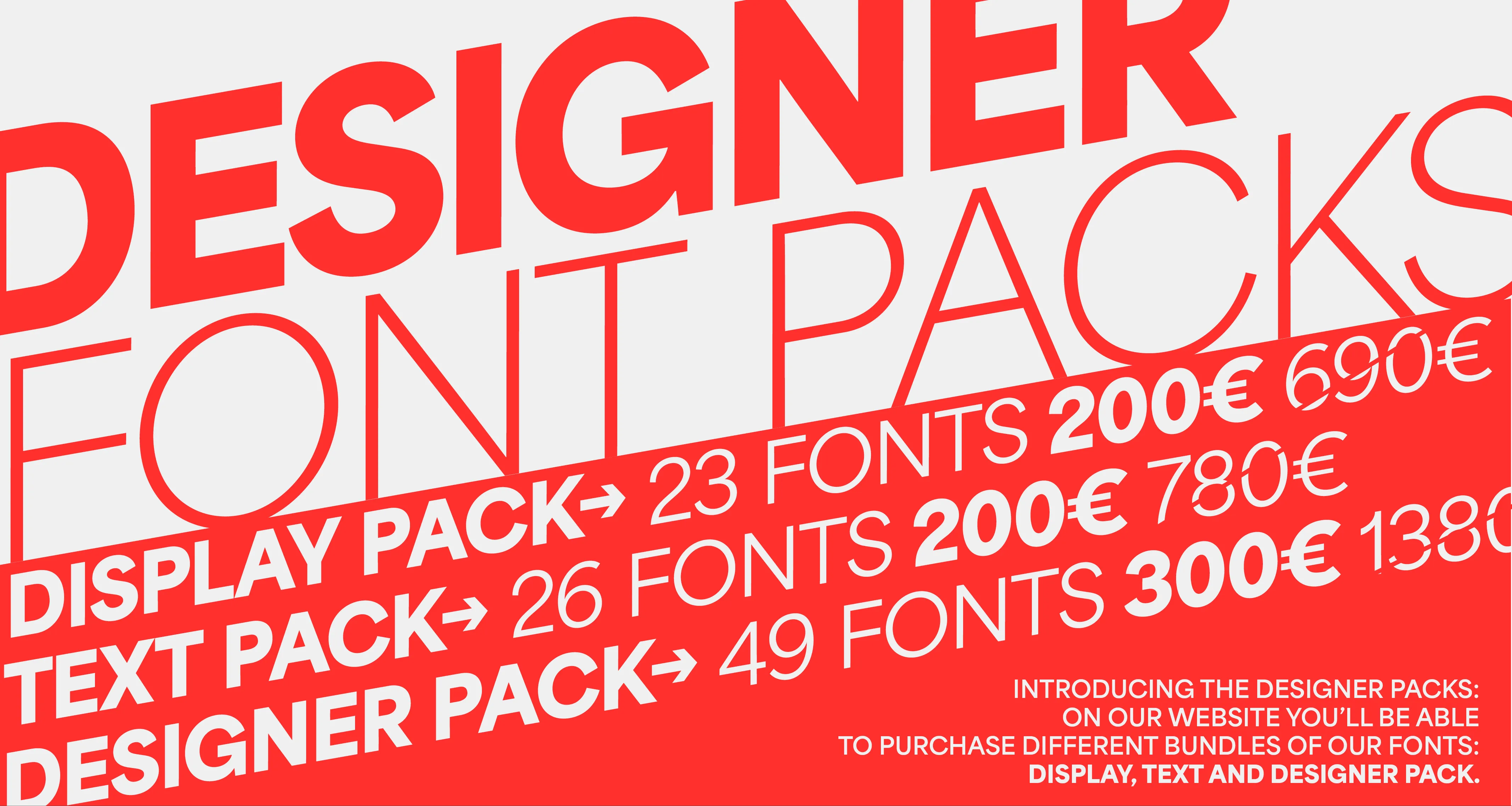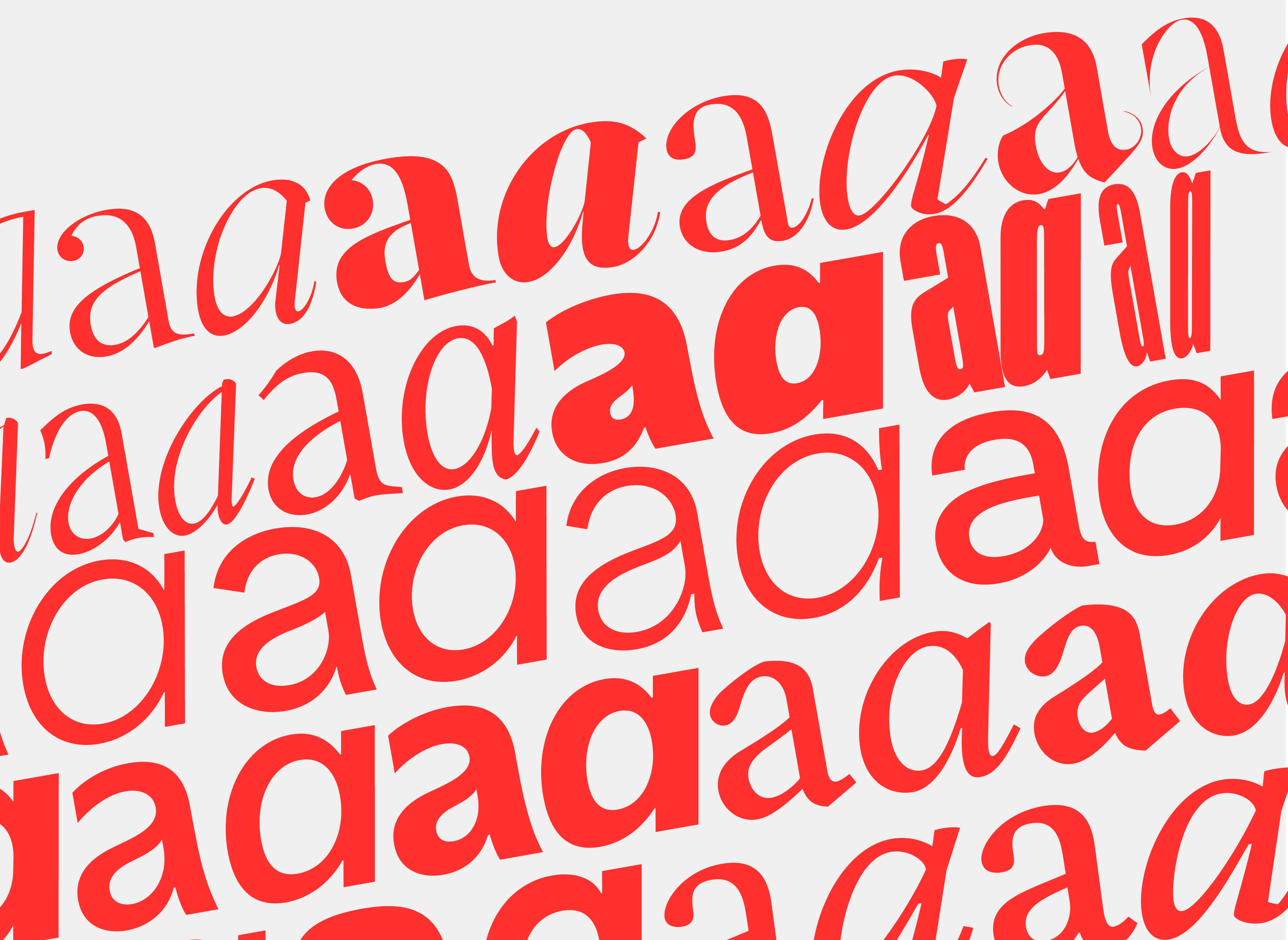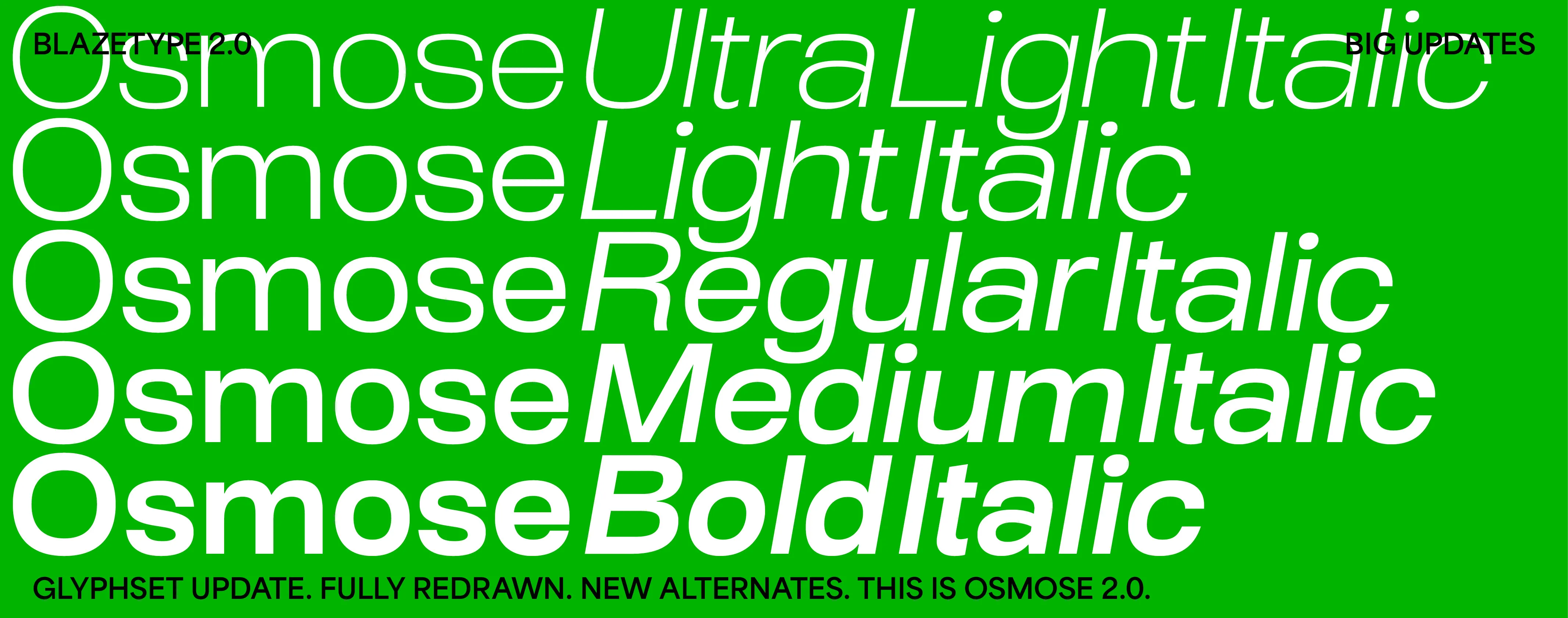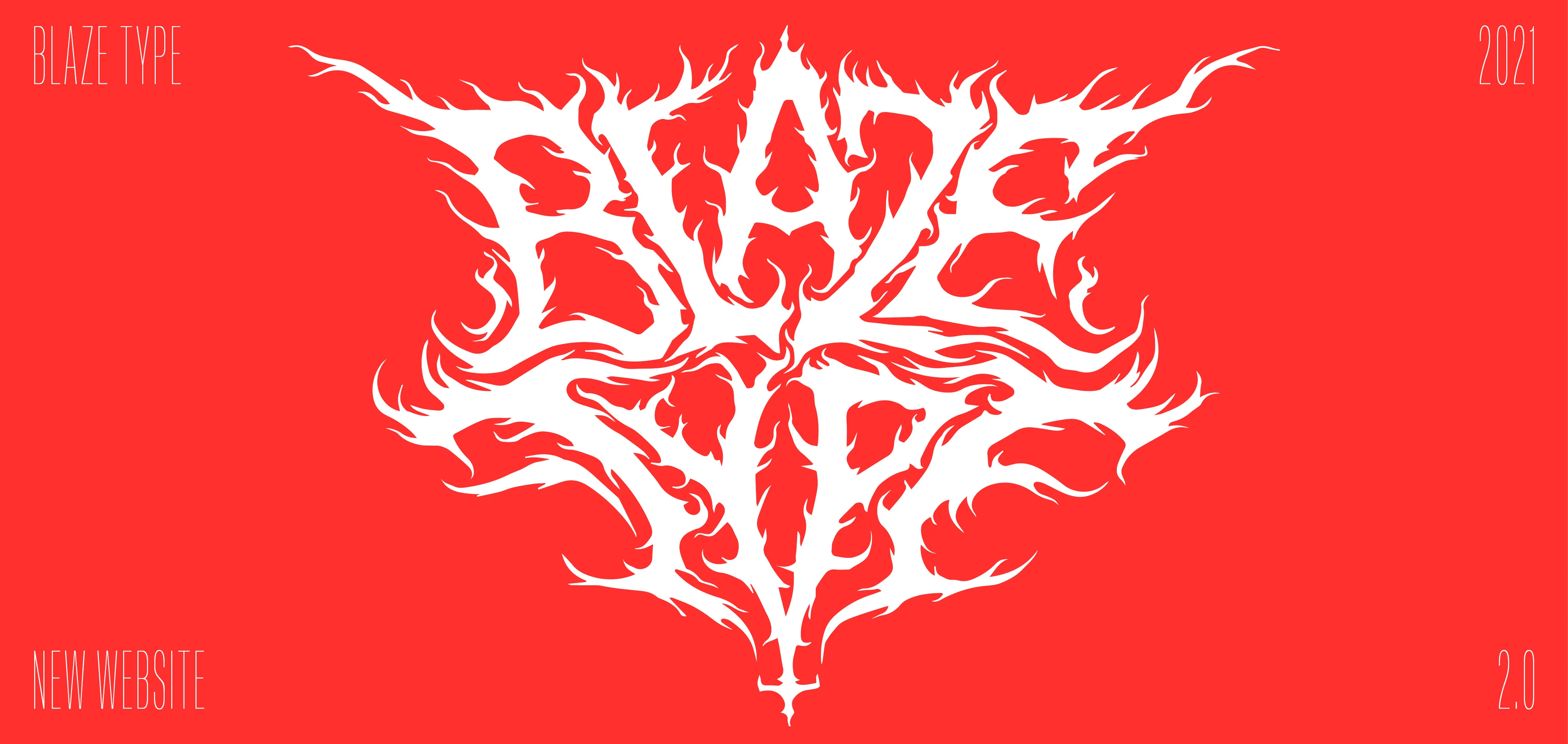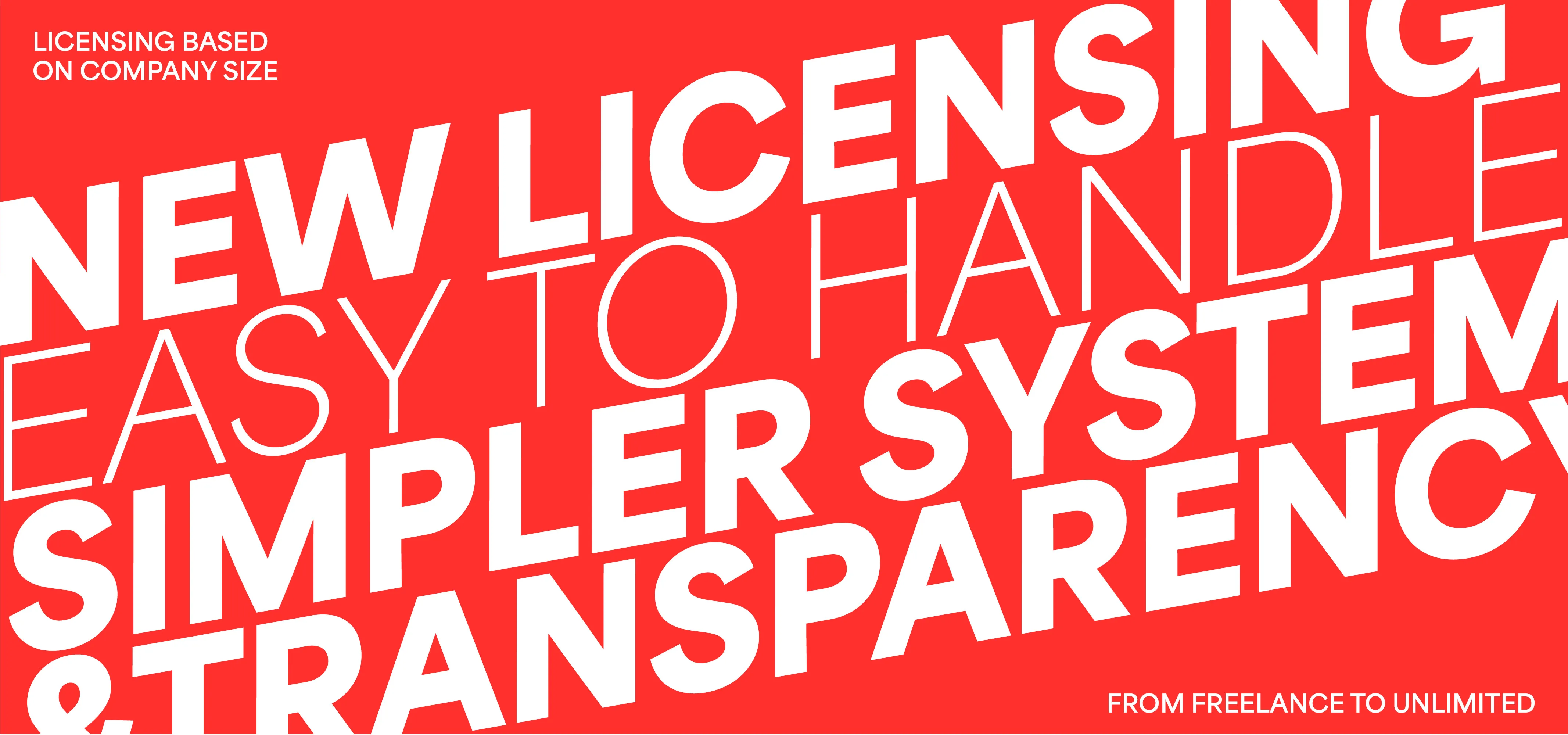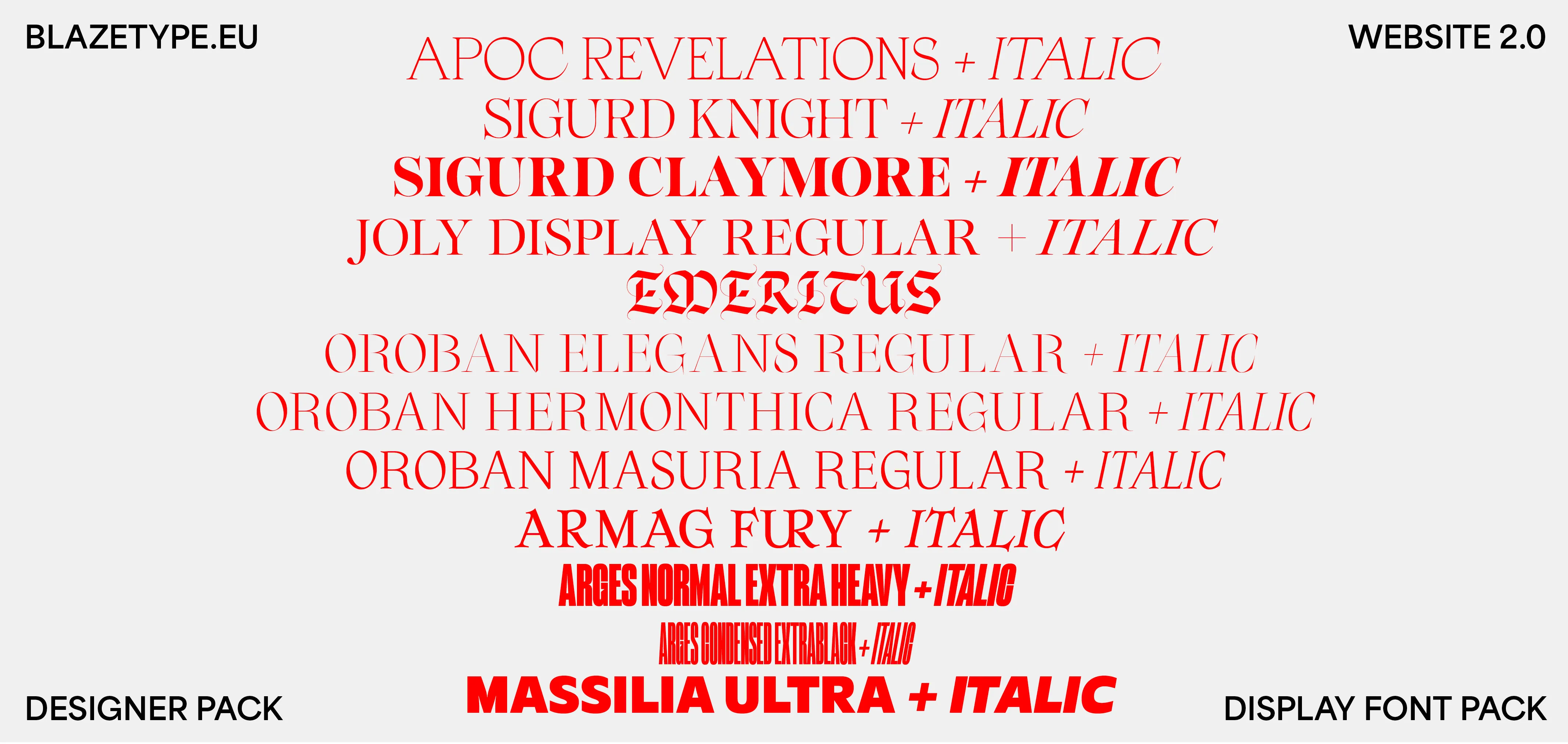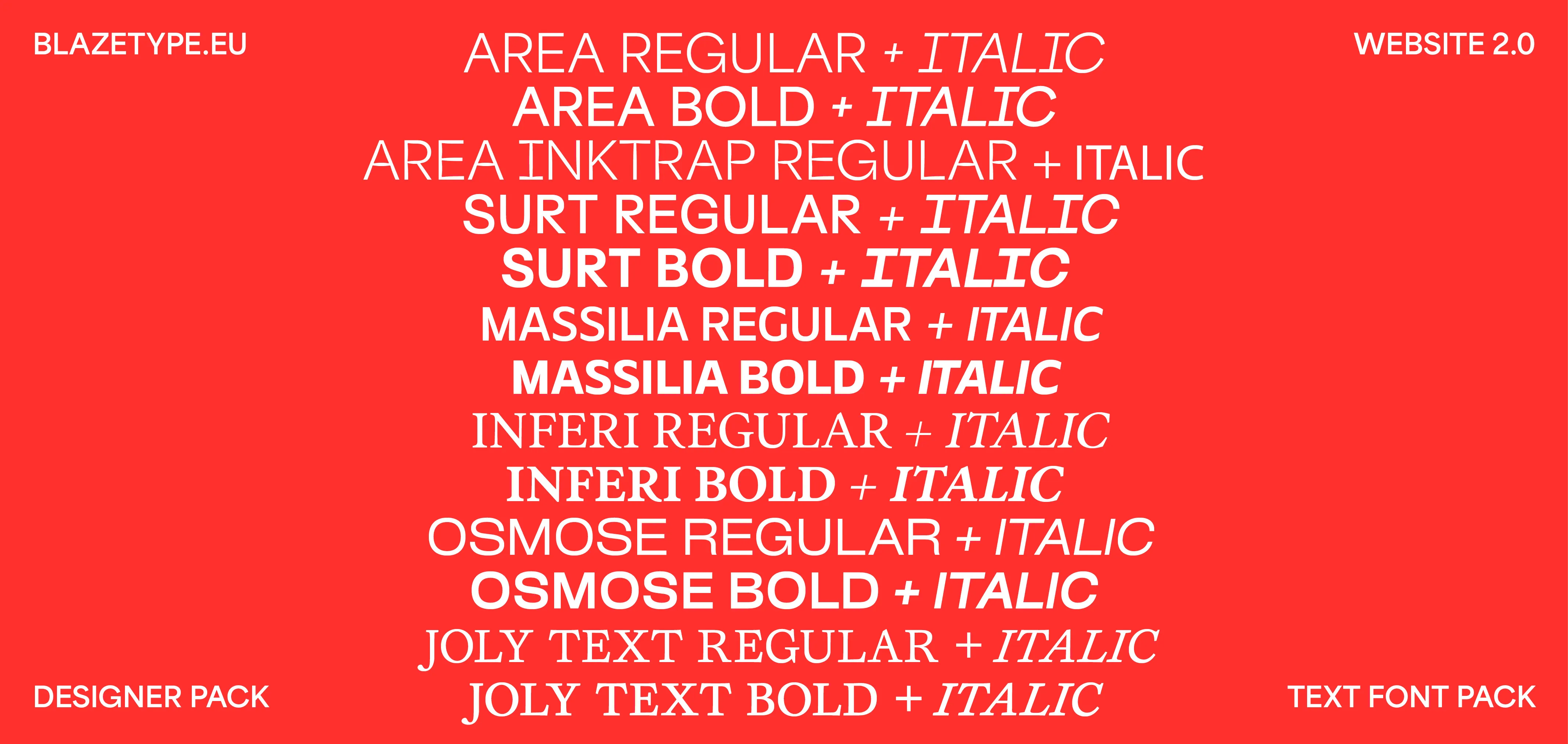
New Website Announcement
After two years of discussion, design & development, we’re super happy to announce the launch of Blaze Type’s Website 2.0
We thought it was important to go through all the different things which lead to the launching of our foundry along with what drove us to refactor our website.
BLAZE TYPE GENESIS
When I started working as a typeface designer back in 2015, I was not so excited about the idea of distributing my work on the various platforms available at the time. It might sound like an ego thing but to be honest, for various reasons (distribution, licensing, pricing, foundries’ royalties, etc.) I was not happy with what I saw in the type industry. And I’ve always been keen on being independent anyway. So, the idea of launching my own space was only natural.
Of course, the things I personally wasn’t okay with in the type industry back then are subject to debate even now — whatever floats one’s boat, right —. Anyway, that’s the way I felt and still feel this day when I think about that period of time.
As you could suspect, I had no idea of the amount of work it would be to create something like that. Not only in terms of type design but the whole question of licensing, distribution, the details and technical proofing you put into a font, and of course the whole website design & development. It was quite the adventure and I was eager to start fast. Beside the whole art direction of the foundry, I wanted the website to be a powerful visual experience.
Back then (2016 or so at the time), most type foundries had, imho, a rather 'austere' look. It looked a bit like old school type specimen if you get my meaning. Some kind of “neutral” feeling to let the fonts speak for themselves more than putting them into design context (like an "in use" kind of way), which is totally fine of course: being a fan of these kind of things myself.
We took full advantage of Marquee3000 and it was quite refreshing to have fonts moving around in various shapes and colours. Trying to have this balance between animated font and a still legible and navigable website is challenging. But we were happy of the results.
The website launched on the 4th of November 2017. It was a fun day because OVH (the server provider we used to host our server & domain) went down in Europa at the time. (Crazy to say that years later the same data center burnt and we were close to losing everything)
I have to say I didn’t expect this type venture to be the success it is. Having a background in graphic design and art direction, end even though type design as a whole practice was something that I devoted myself to, my work as a type designer had never been publicly displayed and I was not really identified as a “type designer” per say back then.
I’m quite happy to share that over our 5 years of existence we’ve had over thirty thousand people choosing to either try or use our fonts in their projects. I guess passion, dedicated work, sacrifices, meeting the right people and a community who relates to you can kick things up in the best kind of way. But no matter what we do, no matter what we design and release, this is all happening because of you all.
Blaze Type turning into a foundry/studio gave me the opportunity to grow a duo of designers to a larger team, we are now a team of over ten people of various profiles and backgrounds from all around the world: graphic designers, type designers, developers, motion designers, photographers and so on.
One of the main goal of Blaze Type is to promote young talents, young type designers, wherever they are.
We have tons of ideas and perspective of projects and are always looking for people to work with, no matter the size of the project: the more the merrier.
Several years later: we’re now in 2022, we had the opportunity to work on several custom works (some are showcased in our blog section, more to come here!) our retail fonts have been used and displayed all around the world by freelancers, studios, agencies and students. There’s still so much more ahead of us and this new website will allow us to bring forward all the different projects we are eager to share with you.
ABOUT THE WEBSITE
The idea of working on a 2.0 version of our website came when we wanted to distribute physical items we designed. That was quite the headache as our first website was not designed to offer both digital and physical content. We decided that we had to work from scratch on another platform. This gave us the opportunity to consider every aspect of what we had to offer and think of something different in terms of graphic design, overall structure and user experience.
Now, Blaze Type has grown, we have to give you all both a fun and dynamic experience but yet something smooth enough for you to easily have access to the different parts of our website and enjoy it.
Over the years we received some emails of people having some issues finding their ways around trial fonts, student discount, the license system or even the whole buying process.
New font families are coming up, of course. We've been discussing with amazing designers and working with them on their project. We're very excited to be soon distributing the works of Valerio Monopoli, Alain Papazian, Siri Lee Lindskrog, Guillaume Sbalchiero, Hugo Jourdan, Arthur Schwarz, Laurène Girbal & we're working on a massive update of our famous Apoc family.